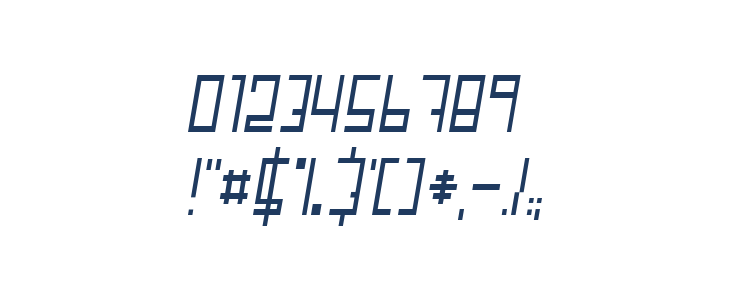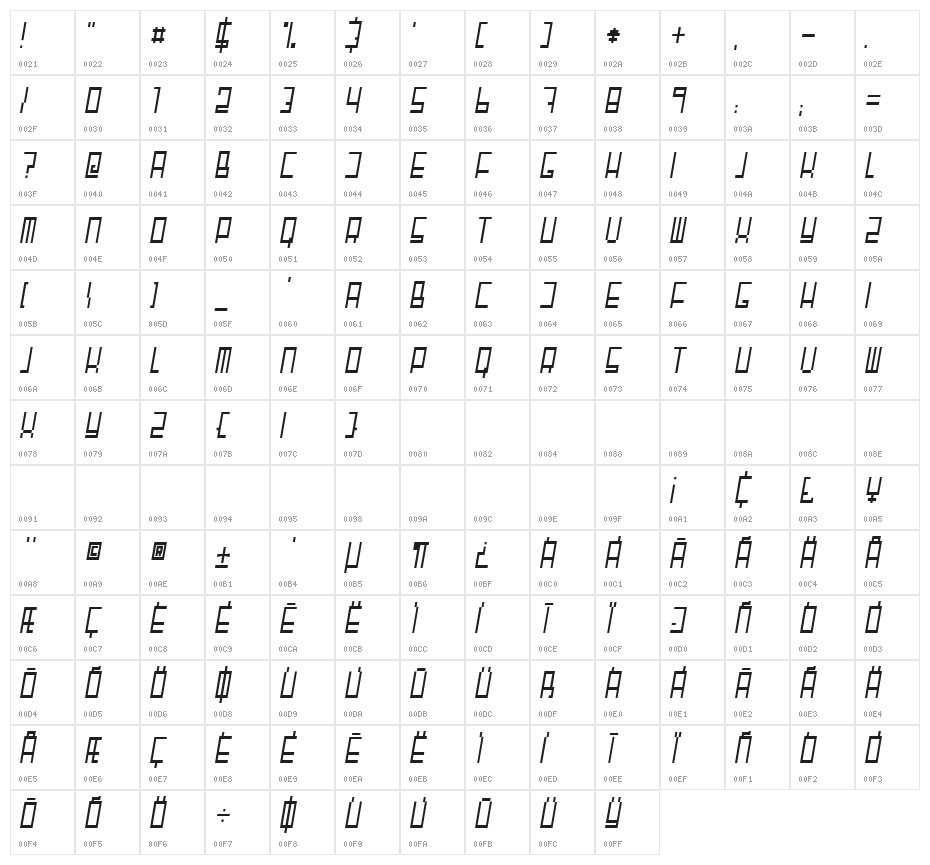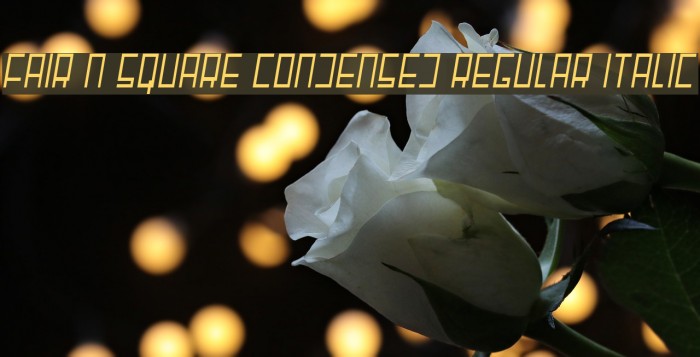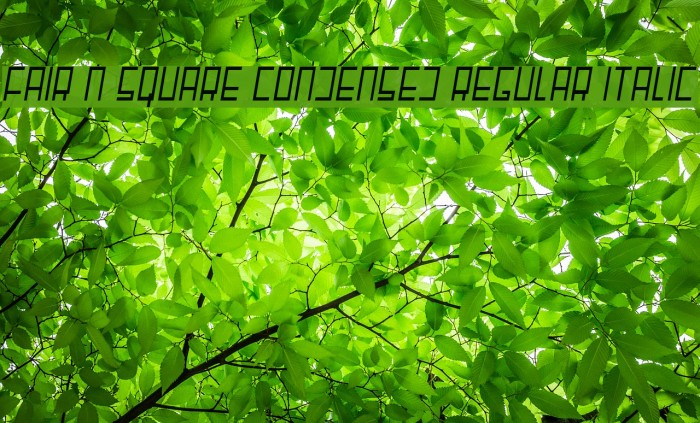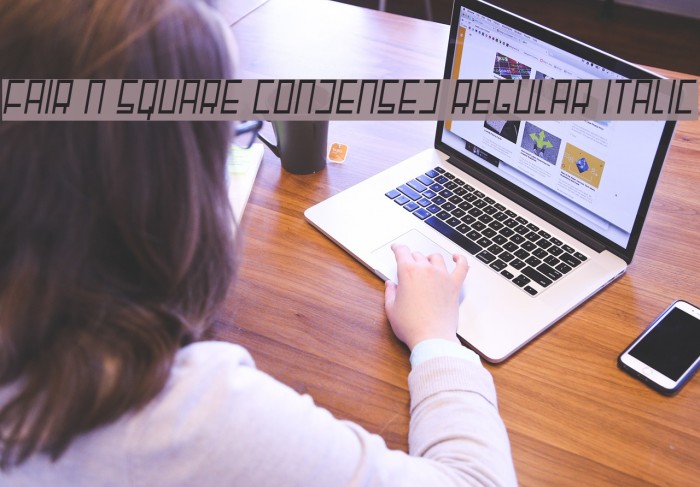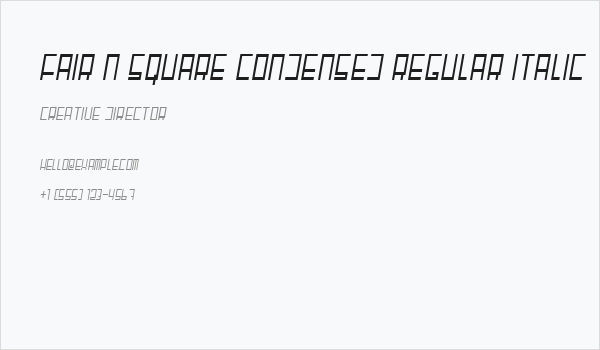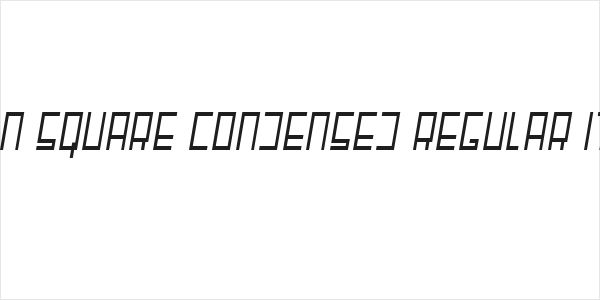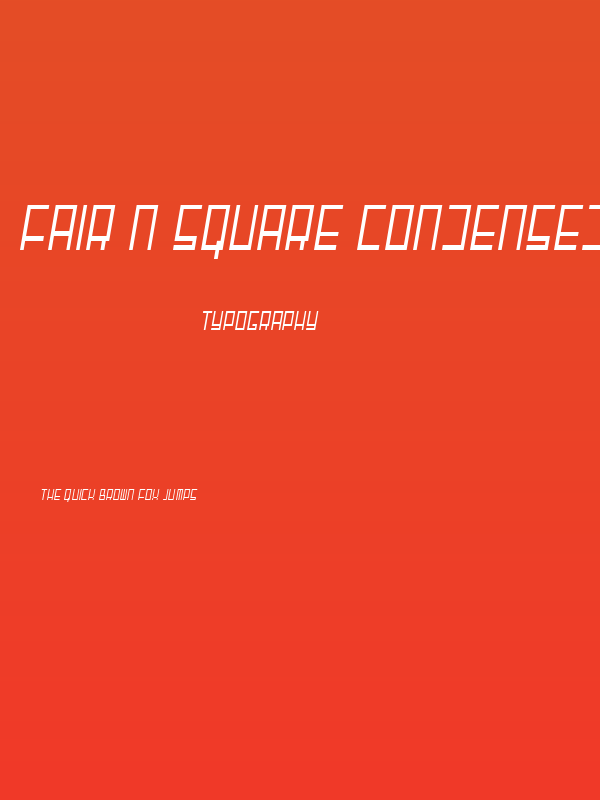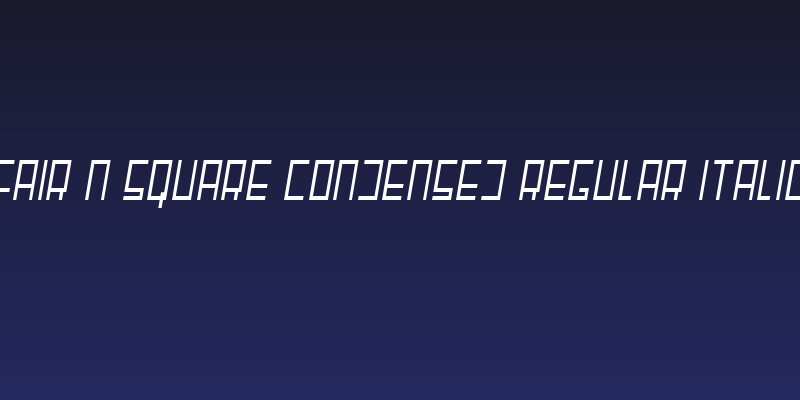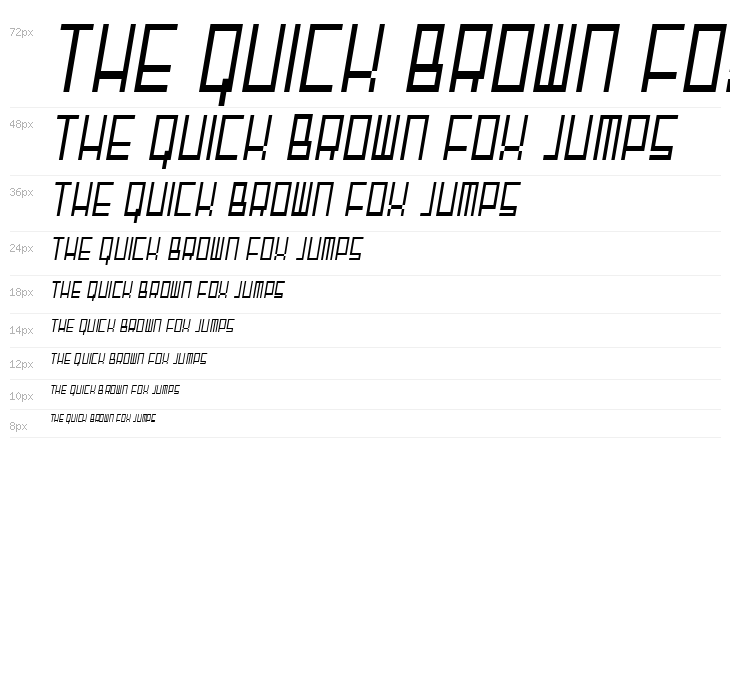
Fair N Square Condensed Regular Italic Font
Fair N Square Condensed Regular Italic Description
This font features a geometric and angular design with a condensed structure, giving it a modern and technical appearance. The characters are uniformly slanted, adding an italicized effect that enhances its dynamic look. The strokes are consistent in thickness, providing a low contrast between thick and thin lines. This font's clean and precise lines make it suitable for projects that require a futuristic or digital aesthetic. Its condensed form allows for efficient use of space, making it ideal for headlines or titles where space is limited.
| Proposed Projects | Ideal for technology branding, digital interfaces, modern posters, and futuristic designs. |